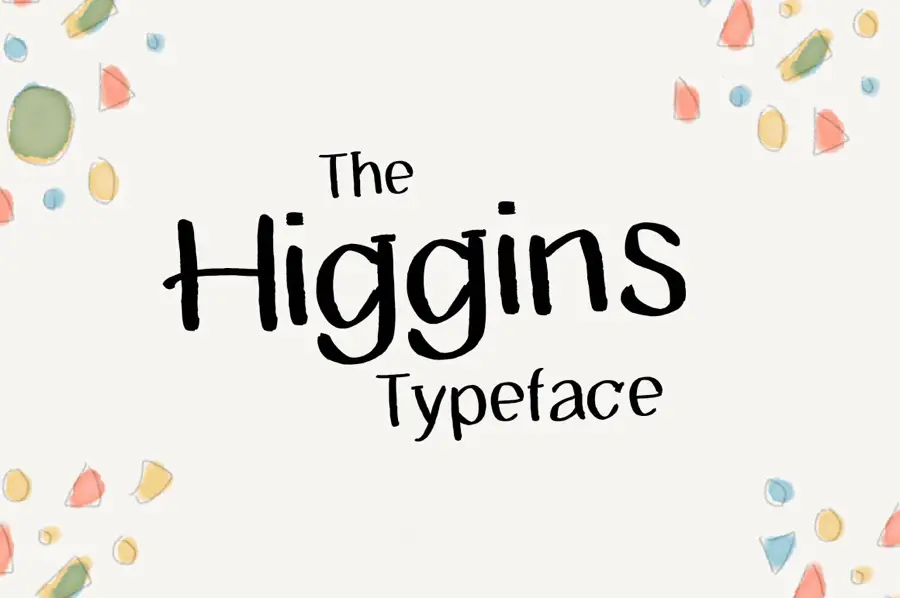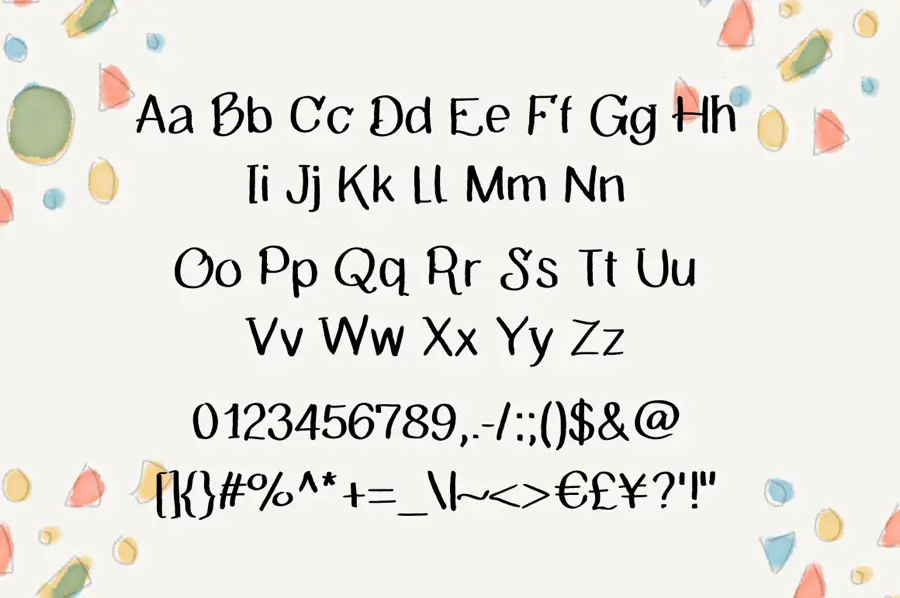
The Higgins Typeface
The Higgins Typeface is a versatile and elegant font that brings a touch of sophistication to any design project. With its clean lines and modern aesthetic, this typeface is perfect for a variety of applications, including branding, logos, web design, and print materials.
• Multiple weights for flexibility in design
• Stylish uppercase and lowercase letters
• Numerous stylistic alternates for creative expression
• Ideal for creating eye-catching headlines and titles
• Use in branding projects for a cohesive look
• Perfect for print materials like business cards and brochures